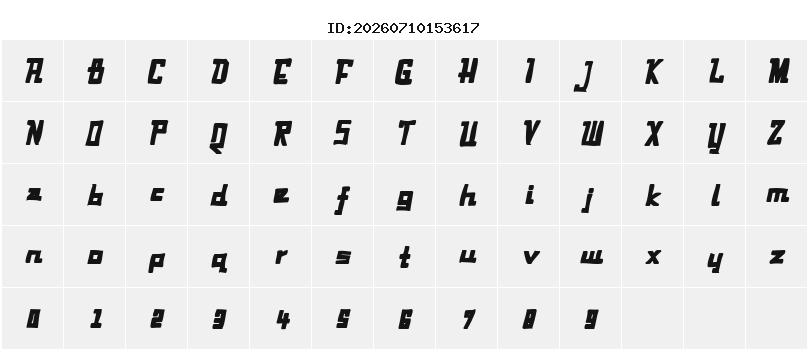
• Font Name: Fabian Ink
• Designer: Ray Larabie Fonts
Fabian Ink.ttf is a modern, elegant sans-serif font designed for ultimate readability and visual harmony. Perfect for branding, headlines, web design, and print materials.